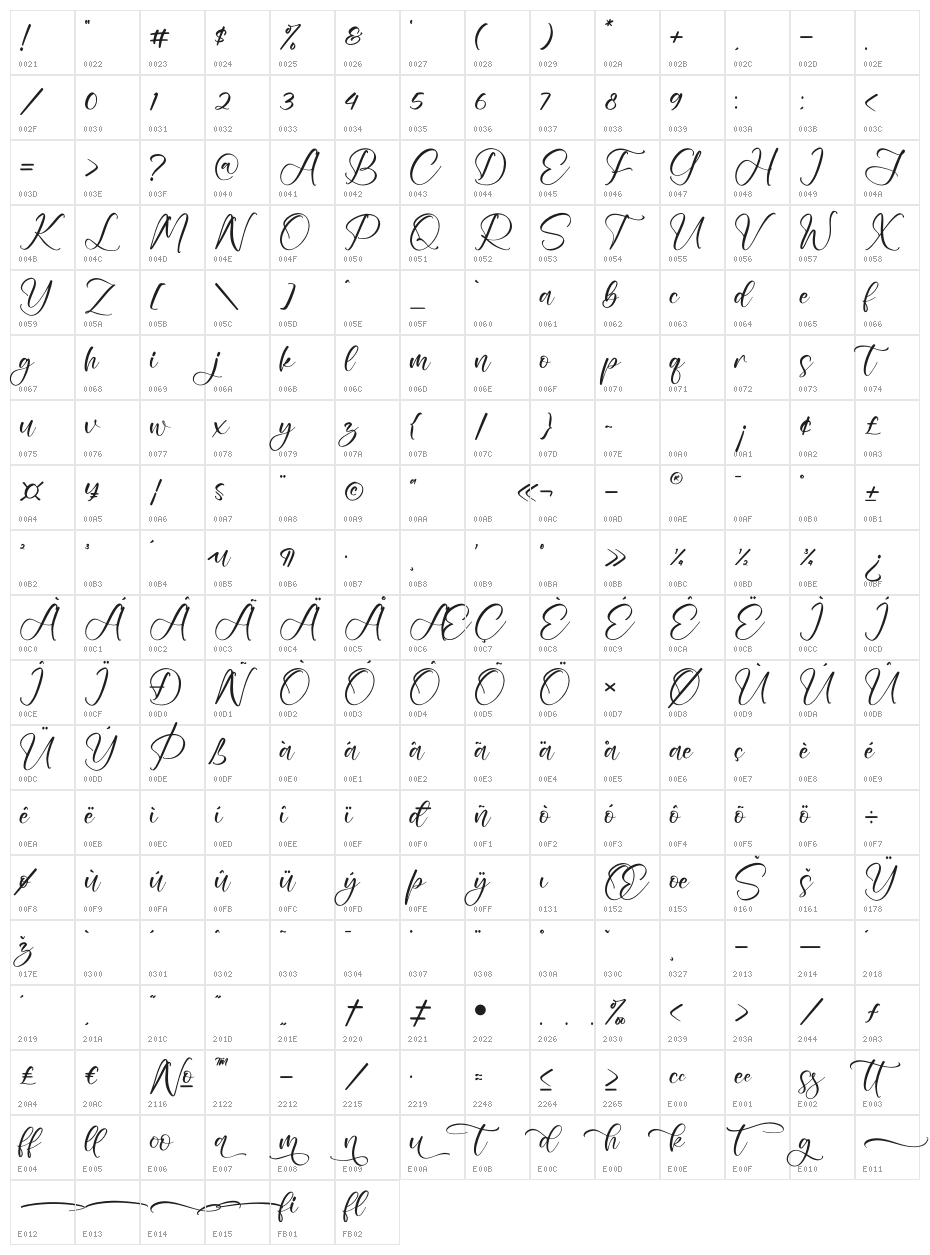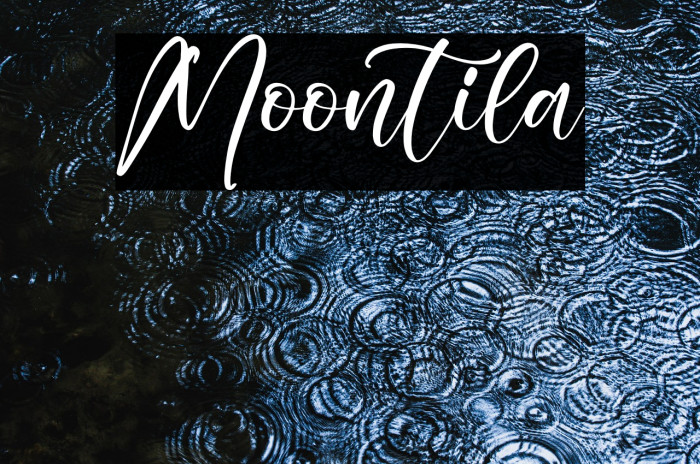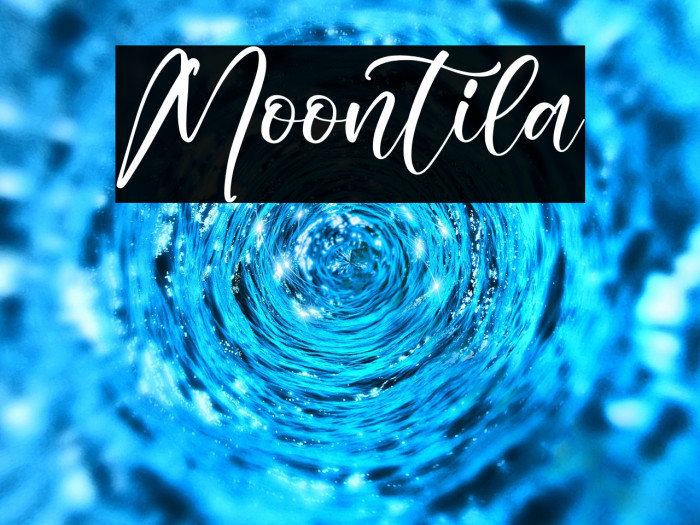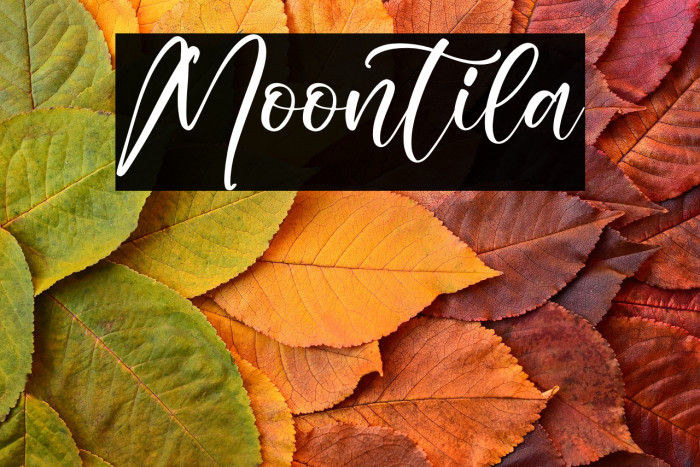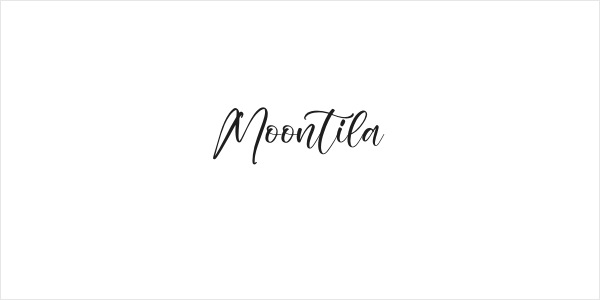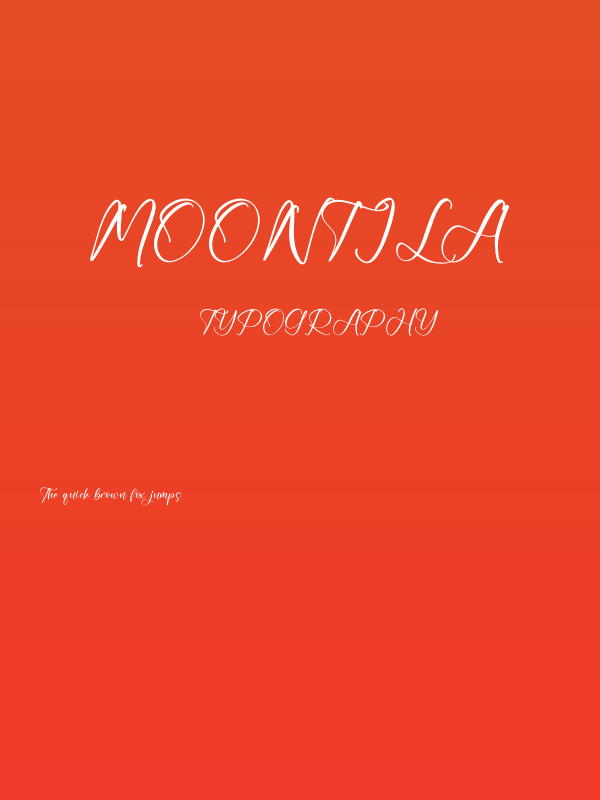
Moontila Font
Moontila Description
A flowing, elegant script font with smooth, connected strokes and a calligraphic style.
| Use Case | Logos, Invitations |
| Proposed Projects | Invitations, greeting cards, branding. |